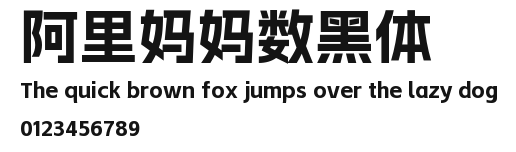
阿里妈妈数黑体 Preview
• Font Name: 阿里妈妈数黑体
• Font ID: 1.005;MAMA;AlimamaShuHeiTi-Bold
• Full Font Name: 阿里妈妈数黑体 Bold
• Version: Version 1.005;beta
• PostScript Name: AlimamaShuHeiTi-Bold
• Character Count: 6993
• Designer: 刘川、陈奇辉、洪良奋、韩小明、李丹丹、陈养剑、龚巍、壹丝、李穆
• Manufacturer: Alibaba Design
About 阿里妈妈数黑体.ttf
阿里妈妈数黑体.ttf is a modern, elegant sans-serif font designed for ultimate readability and visual harmony. Perfect for branding, headlines, web design, and print materials.